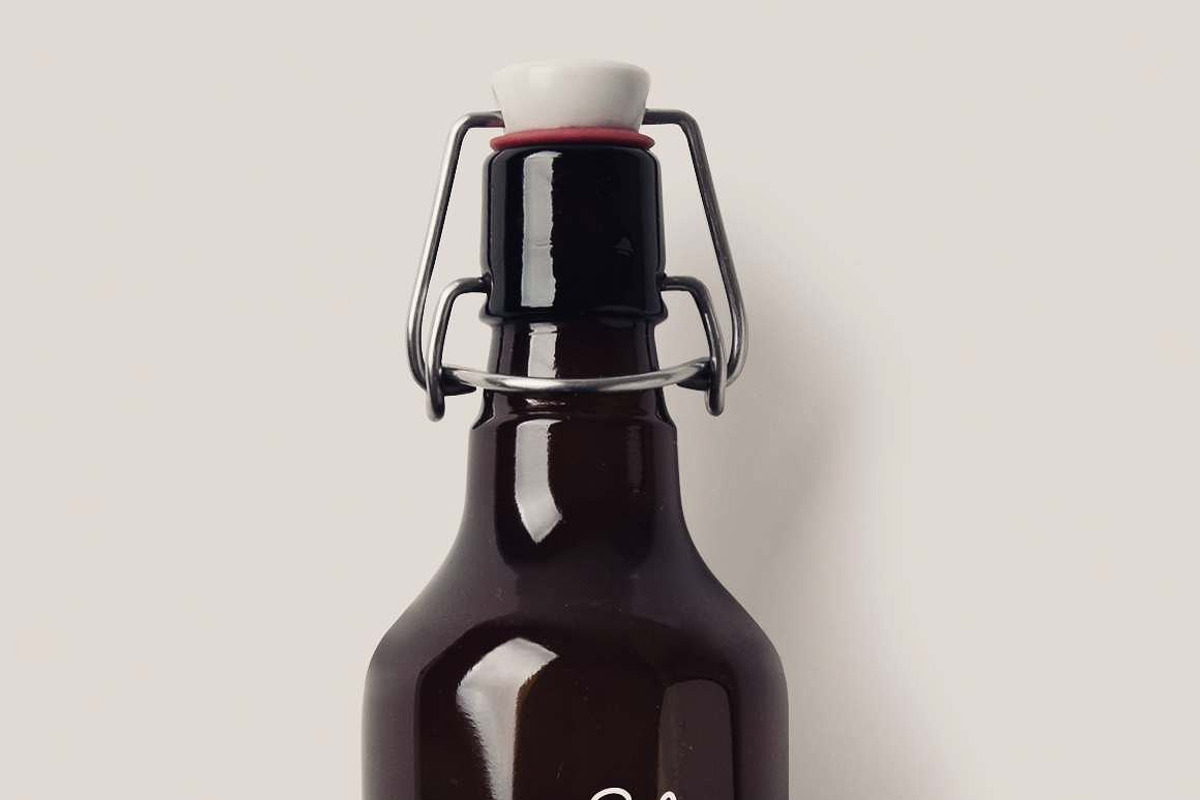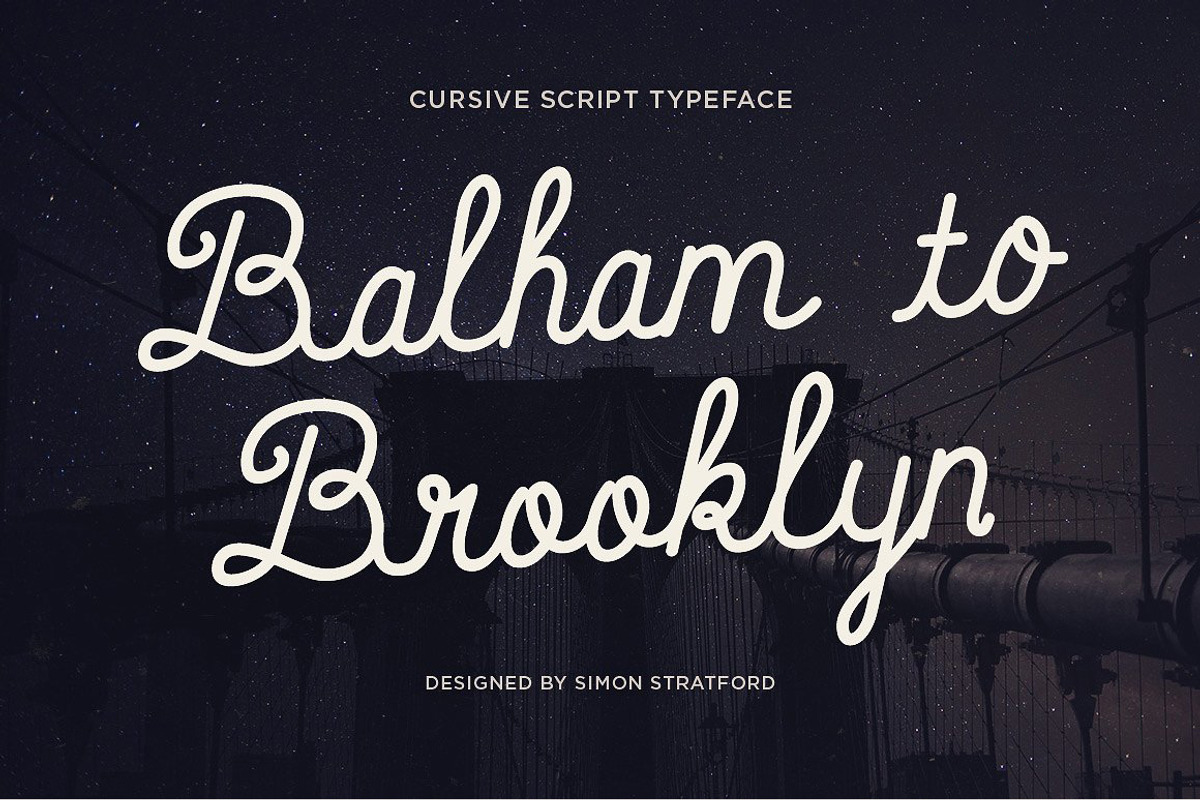
Script font Balham to Brooklyn
The inspiration Balham to Brooklyn was lots of things, from previous attempts at creating a script typeface to old American neon signs. It’s me absorbing things—popular culture. America and watching too much Fast N’ Loud on discovery channel.
This is my take on that cutesy, nostalgic slice of America. It’s Krispy Kreme sweet and more than a touch retro.
It's a monoline script font so each letter is fully-connected to the next to emulate hand drawn letterforms. This is done by using contextual alternatives an OpenType feature available in you design application.
It’s ideally suited for packaging, logo work, branding, occasions, invites, posters and anything creative.
I called it Balham to Brooklyn. I got the name from a Turin Breaks song, it seemed like the perfect fit. The two places are so contrasting, Balham, London to Brooklyn USA. Also my favourite drinking hole is in Balham.
And just in case you were wondering, Brooklyn is about 3458 miles from Balham.
The typeface includes support for Western, Central and South Eastern languages. It has upper/lowercase letters, numbers, punctuation, and symbols.
In total, it has 937 glyphs. I have even thrown in a selection of alternative uppercase letters.
The font is not intended to be used in uppercase as it will look ugly. It's all about the sentence case.